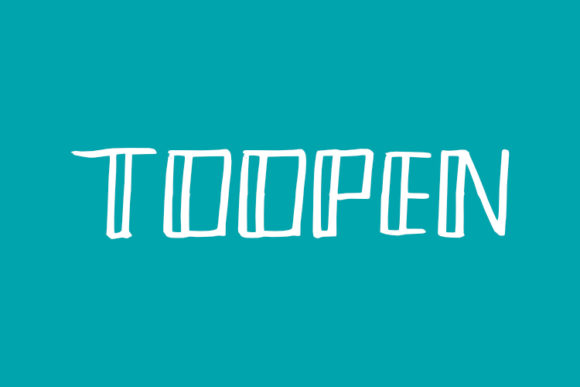
Journey into the world of Toopen Font, an extraordinary display font that dances on the canvas of your designs with its carefree spirit. Immerse yourself in the whimsical realm of doodle art, where playful lines and organic shapes intertwine to create a symphony of visual delight. Allow your imagination to roam free as you witness the magic of Toopen Font's casual elegance take your creations to new heights of visual allure.
Unleash your inner artist and dive into the boundless possibilities of Toopen Font. Its unique charm adds a touch of lightheartedness and playfulness to any project. Let your words dance across the page with an infectious rhythm, capturing the attention of your audience with every stroke. Explore the limitless potential of Toopen Font, whether it's for captivating logos, eye-catching posters, or mesmerizing social media posts.
With Toopen Font, you're not just downloading a font; you're acquiring a creative companion that will spark your imagination and infuse your designs with a sense of unrestrained joy. Its versatility knows no bounds, effortlessly complementing a myriad of design styles and themes. From whimsical illustrations to quirky branding, Toopen Font seamlessly adapts, bringing a touch of whimsy and delight to every project it graces.
Step into a world of visual enchantment with Toopen Font. Its distinctive character is sure to leave a lasting impression on your audience, captivating their hearts with its playful charm. Allow Toopen Font to be the catalyst for your next creative masterpiece, inspiring you to push the boundaries of design and create works of art that resonate with your audience on a deeper level.